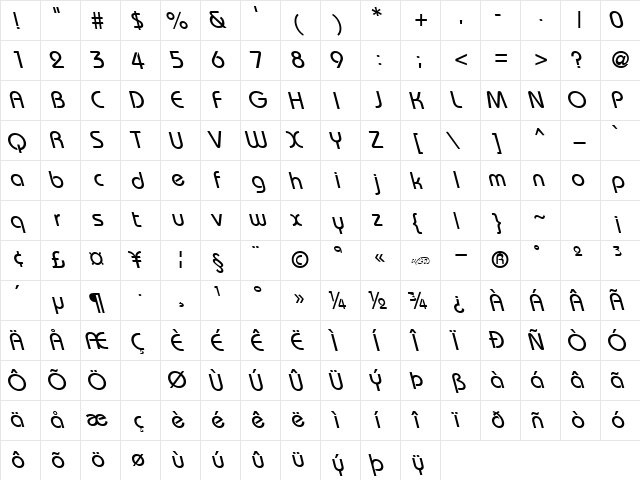
Bordeaux Backslant Regular
Design Context for Bordeaux Backslant Typeface
Bordeaux Backslant offers clean, dependable letterforms without strong stylistic allegiance, making it a practical choice for designers who need flexibility.
Pro Tip: Pair Bordeaux Backslant with a font of contrasting weight or personality to build a more expressive typographic hierarchy.